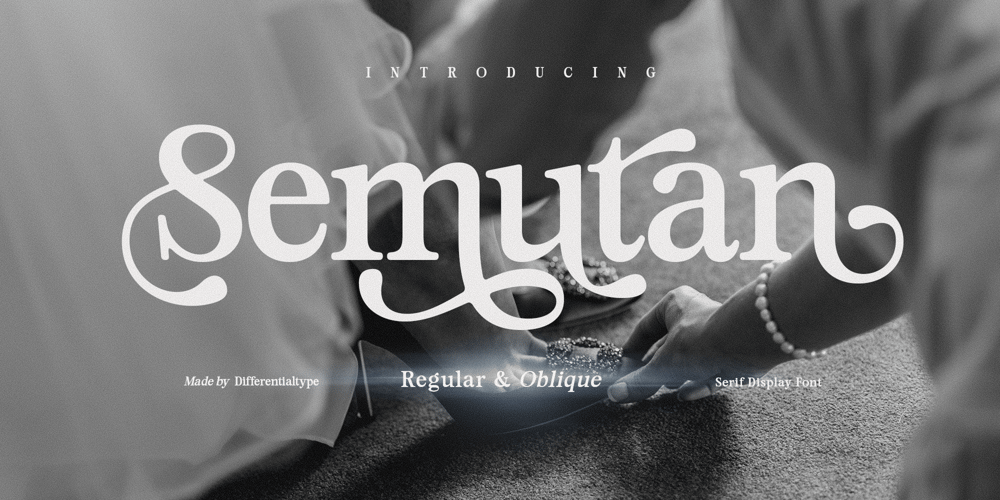
Semutan
Semutan Font Family was designed by Sidik Sidik and published by Differentialtype. Semutan contains 2 styles and family package options. Experience the elegance of Semutan, an artfully-crafted serif font exuding a smooth, crisp minimalism. As a highly-versatile choice, this font effortlessly transitions from striking display text to readable body script. With its innate adaptability, Semutan seamlessly integrates into various projects, serving as the ideal choice for product branding, wedding invitation design, intricate font logos, and beyond. Incorporating the Semutan font in your creative works ensures an added dash of visual excellence, elevating the overall aesthetic appeal of your masterpieces.